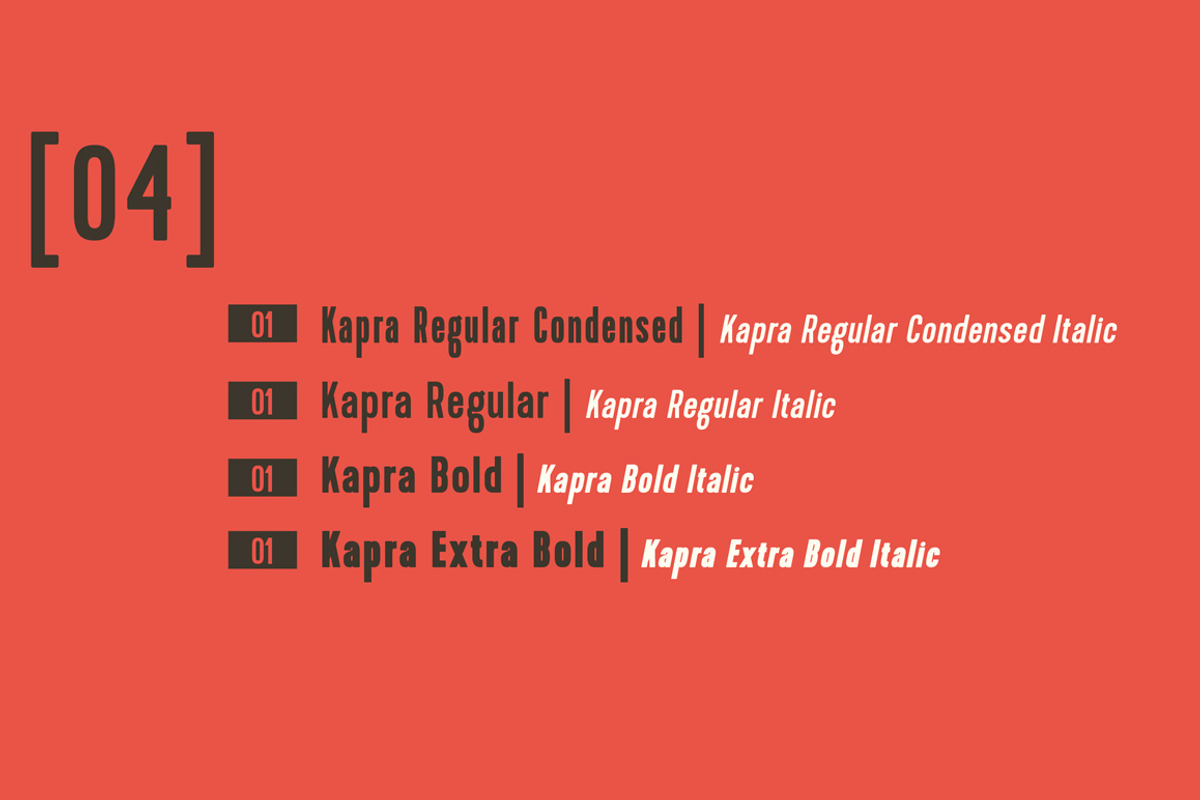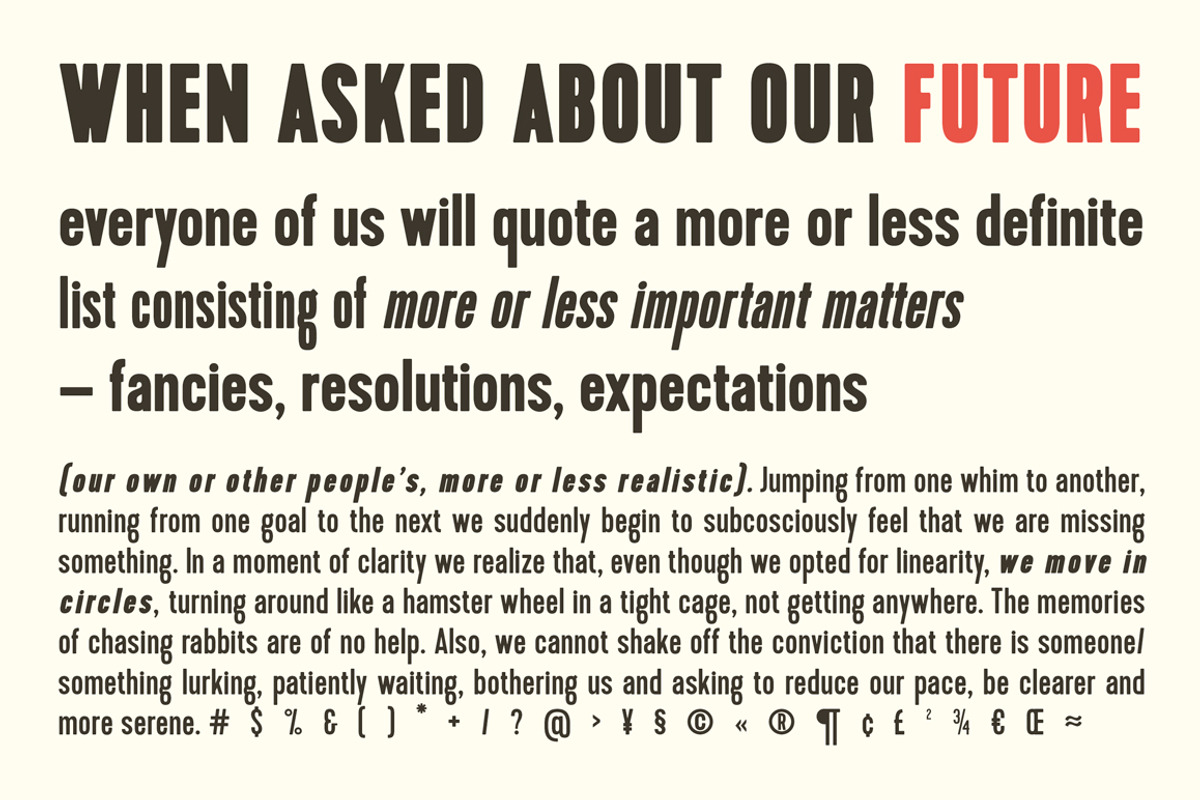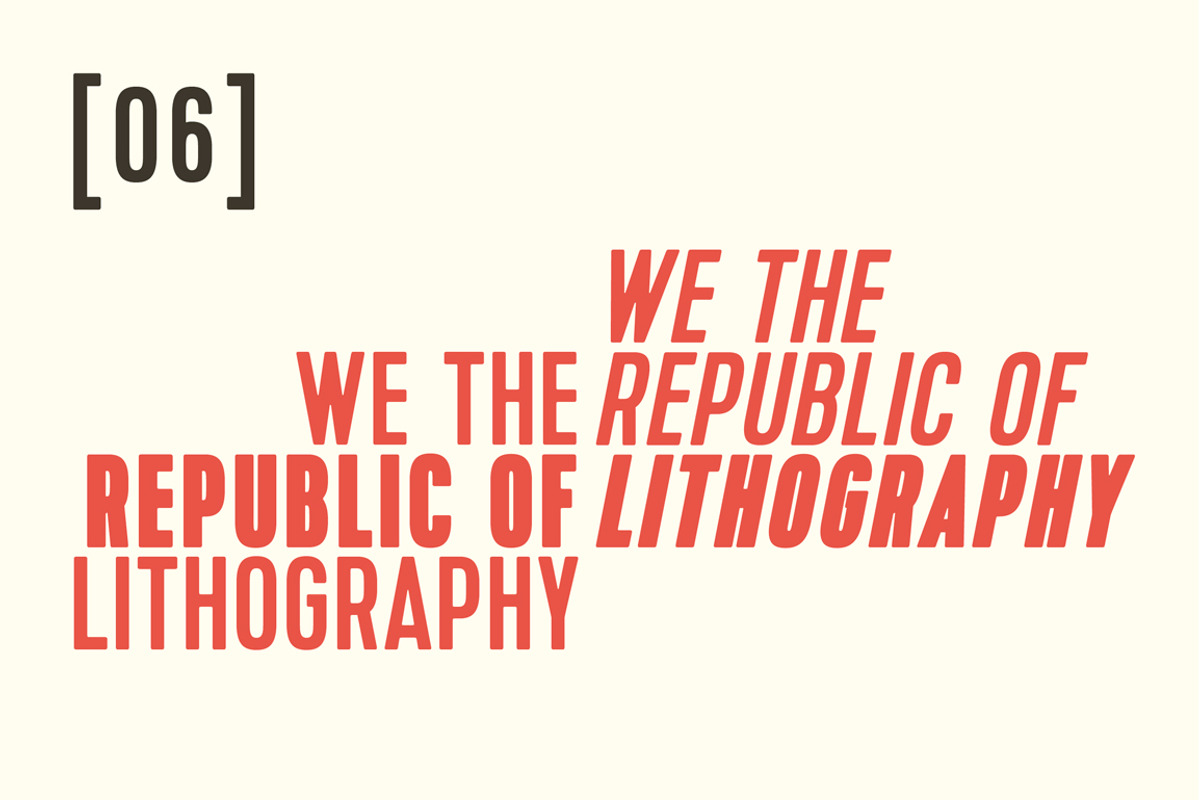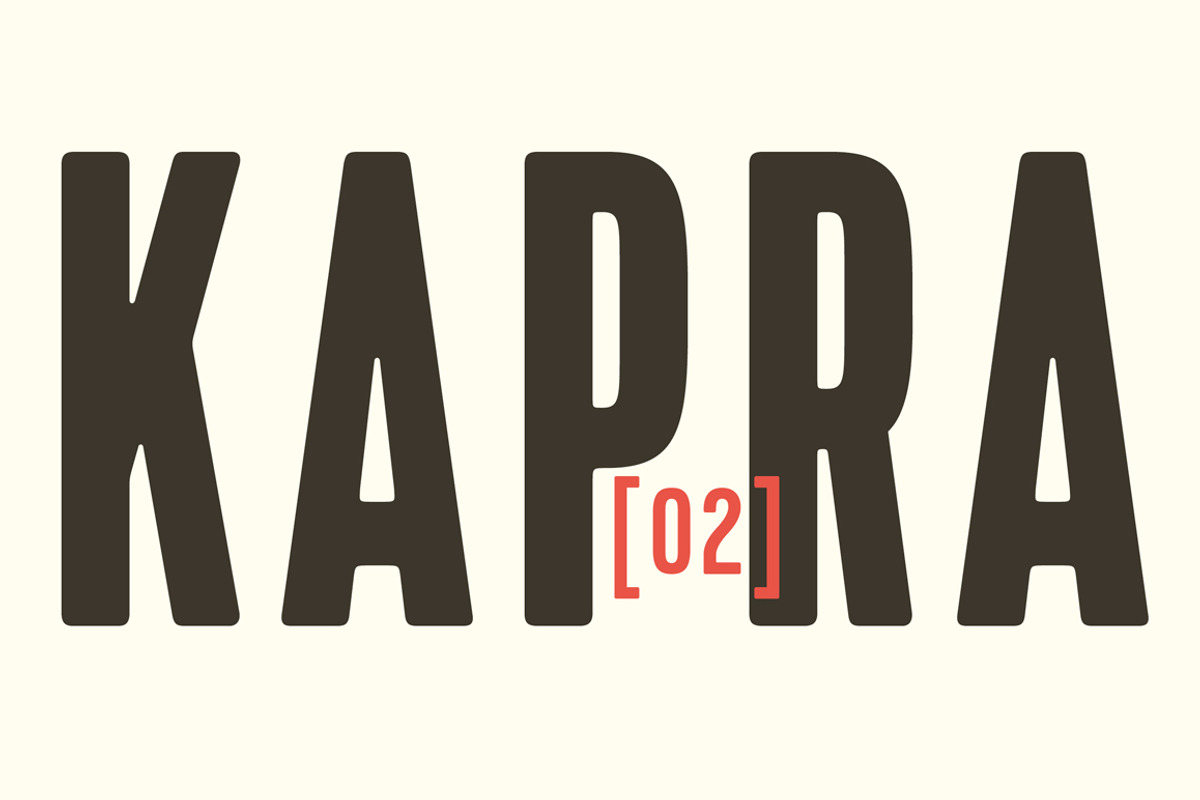
Kapra fonts family - 50% off
Kapra fonts family - 50% off by Blazej Ostoja Lniski is a font selected for branding, posters, packaging, typography.
- The font Kapra is designed in eight versions – lower and uppercase characters.
Why Kapra fonts family - 50% off is worth a look
Kapra fonts family - 50% off by Blazej Ostoja Lniski fits naturally into Branding, posters, packaging, typography.